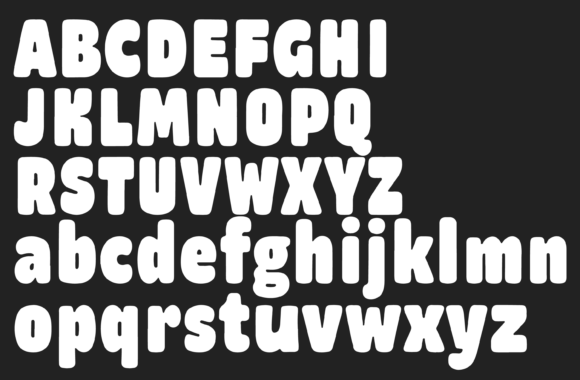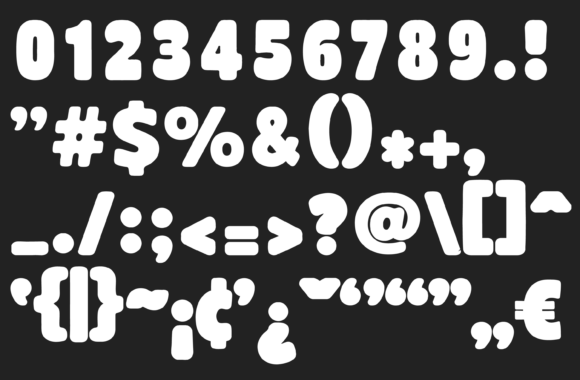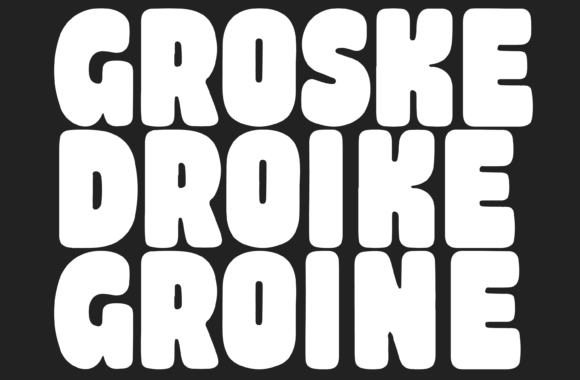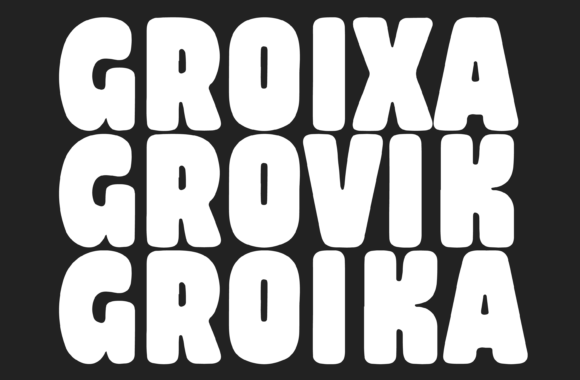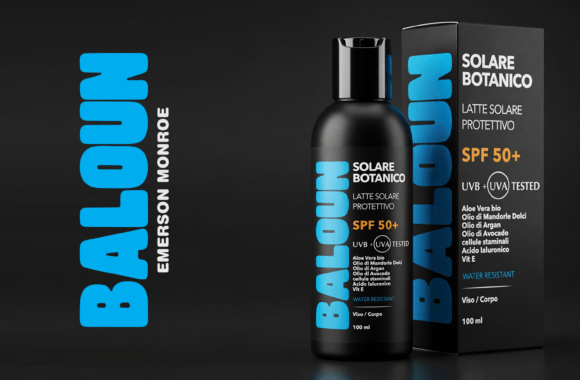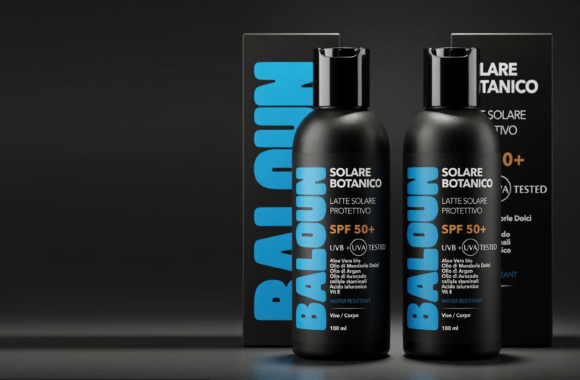
BALOUN – Fun & Chunky Display Font
Meet Baloun, a bold, chunky display font designed to bring instant personality and impact to your creative projects. With its rounded shapes and playful character, Baloun is perfect for designs that need to stand out while staying friendly and approachable. Whether you’re creating eye-catching logos, standout packaging, or scroll-stopping social media graphics, Baloun delivers a modern, fun aesthetic that captures attention and keeps it.
Why Choose Baloun?
Baloun is engineered for maximum readability and visual impact, making it ideal for both digital and print applications. Its thick strokes and soft curves create a strong presence while maintaining a playful and versatile style. This font is designed to help you create stunning visuals that resonate with your audience and leave a lasting impression.
Perfect For:
- Logos & branding projects: Create a bold and memorable brand identity with Baloun.
- Product packaging (cosmetics, food, lifestyle): Stand out on store shelves with eye-catching packaging designs.
- Stickers & Cricut/Silhouette designs: Add a playful touch to your DIY projects and crafts.
- Social media graphics & ads: Capture attention and drive engagement with scroll-stopping graphics.
- T-shirt designs & merch: Create fun and stylish apparel with Baloun.
- Kids’ products & playful branding: Bring a smile to kids’ faces with colorful and playful designs.
- Posters, headlines & display text: Make a bold statement with Baloun’s chunky and playful style.
Font Features:
- Bold, rounded shapes for maximum impact
- Playful and friendly character
- Thick strokes and soft curves for a strong yet approachable style
- Perfect for digital and print applications
- Highly readable and visually striking
What Makes Baloun Unique?
Baloun’s unique blend of boldness and playfulness sets it apart from other display fonts. Its rounded shapes and soft curves create a friendly and approachable feel, making it perfect for designs that need to connect with their audience on a personal level. Whether you’re creating a brand identity, advertising a product, or simply adding some personality to your designs, Baloun is the perfect choice.
Tips for Using Baloun Effectively:
- Use Baloun as a statement piece: Let the font be the focal point of your design and make a bold statement.
- Pair Baloun with complementary fonts: Combine Baloun with other fonts to create a unique and visually appealing typography.
- Experiment with colors and textures: Add depth and interest to your design by experimenting with different colors and textures.
- Keep it simple: Don’t be afraid to keep your design simple and let Baloun’s bold style shine through.
Conclusion:
Baloun is a versatile and fun display font that’s perfect for designers and crafters looking to add some personality to their projects. With its bold and chunky style, Baloun is sure to make a lasting impression and capture attention. Whether you’re creating logos, packaging, social media graphics, or merchandise, Baloun is the perfect choice for adding a touch of playfulness and friendliness to your designs.